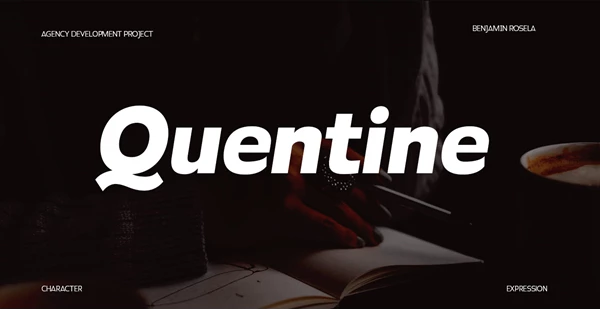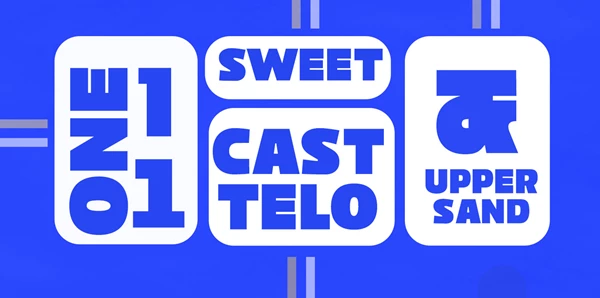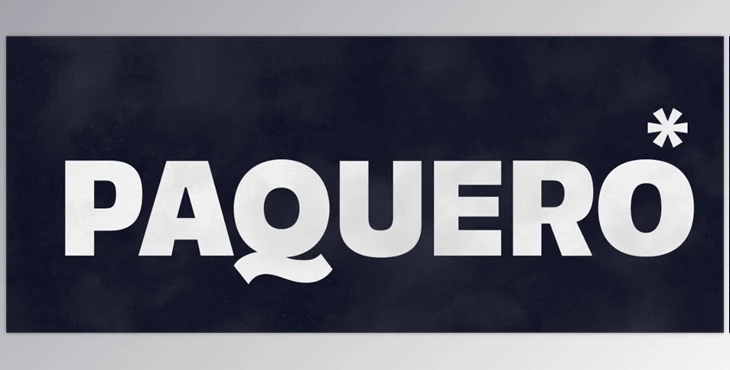
The Paquero Font Family is a contemporary interpretation of geometric sans serif. This font family consists of 18 different styles featuring strong geometric forms and modern cuts that combine into a typeface that is powerful but uniquely playful. The series of repeated, basic shapes creates a rhythm that maintains legibility at all levels, making Paquero a perfect choice for everyday needs.
Paquero consists of nine different weights and is designed to fill space confidently and comfortably without overpowering the font. The tall X-height and strong capital letters maintain legibility across all weights and feature optical corrections for improved reading. The slanted version of 12º adds yet another level of effectiveness for a complete typographic offering.
- Uppercase and Lowercase Letters
- Digits and Ligatures
- Multilingual Support
Ideal for anything from logos to branding to signage, interfaces, and designs, Paquero can do it all due to its classic geometric precursor but fresher take. This family is an excellent addition to any designer's toolkit for diverse applications and a highly functional style.